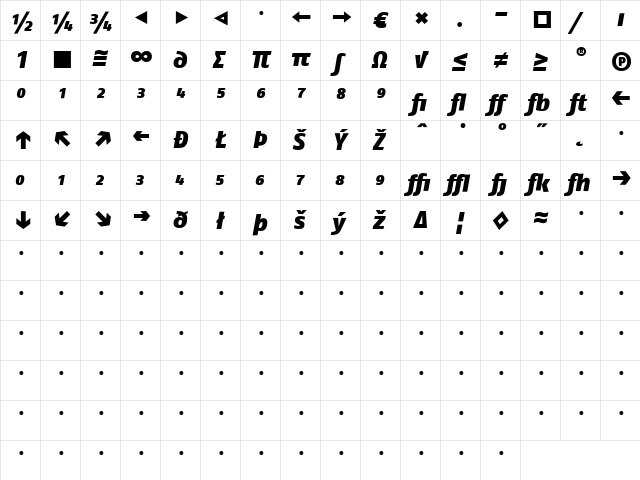
FagoNo ItalicHeavy Font Preview
FagoNo ItalicHeavy
FagoNo ItalicHeavy Font Details
| Style | ItalicHeavy |
| Foundry | Ole Schaefer, . Published by FontShop International for FontFont Release Fago is a trademark of FSI Fonts and Software GmbH |
Design Context for FagoNo Typeface
FagoNo offers clean, dependable letterforms without strong stylistic allegiance, making it a practical choice for designers who need flexibility. Its italic angle brings a sense of urgency and motion to the letterforms.